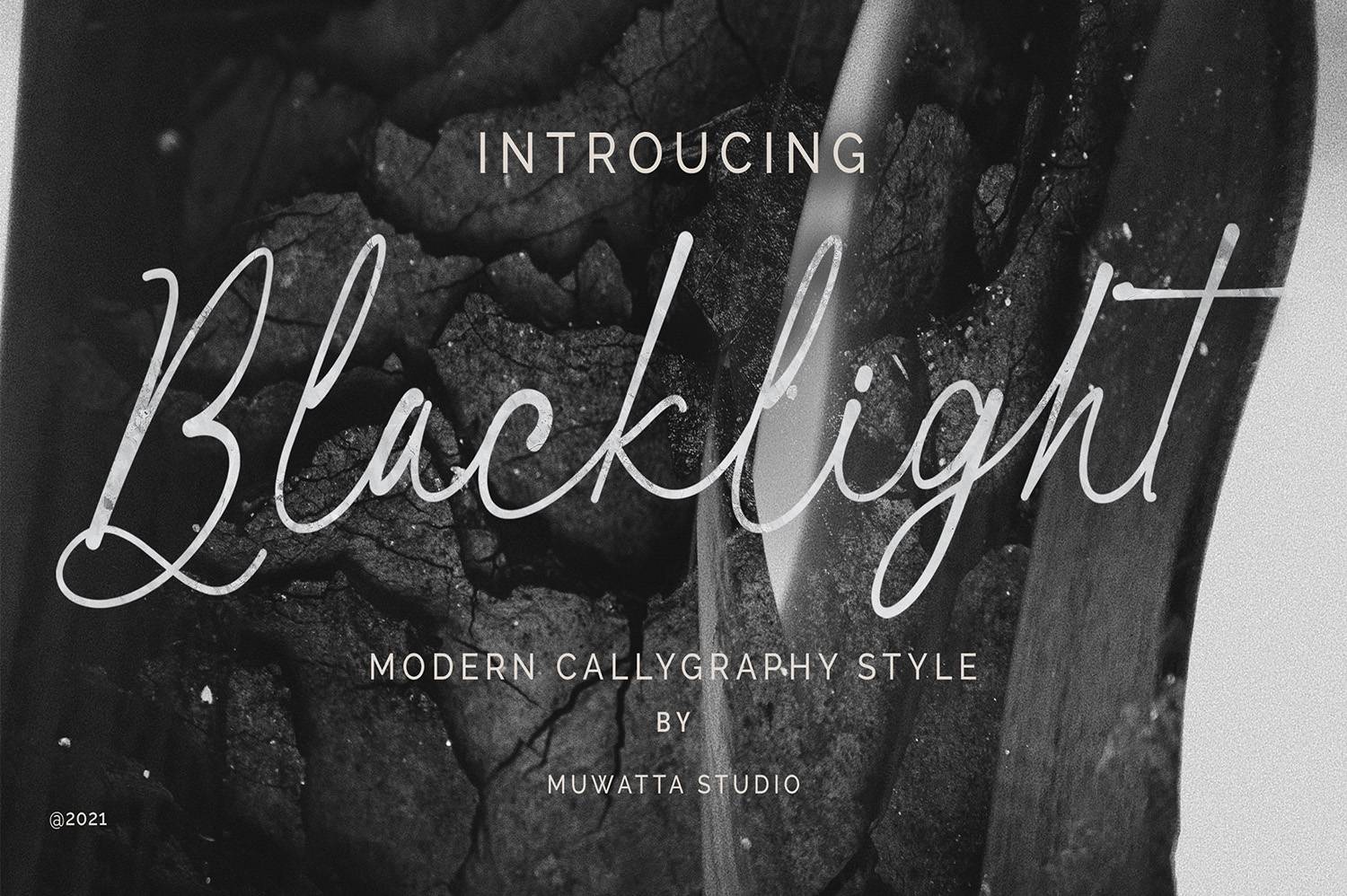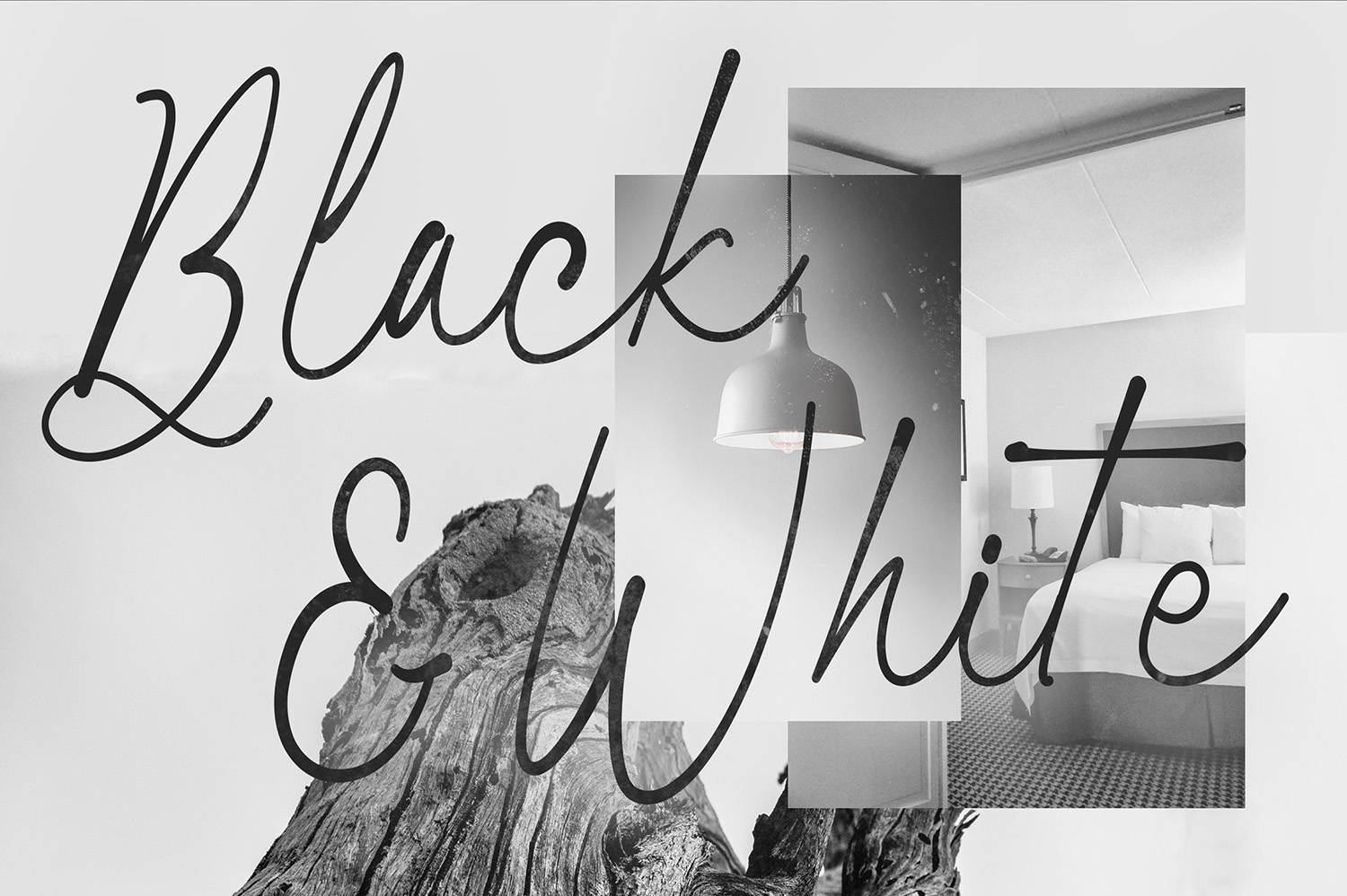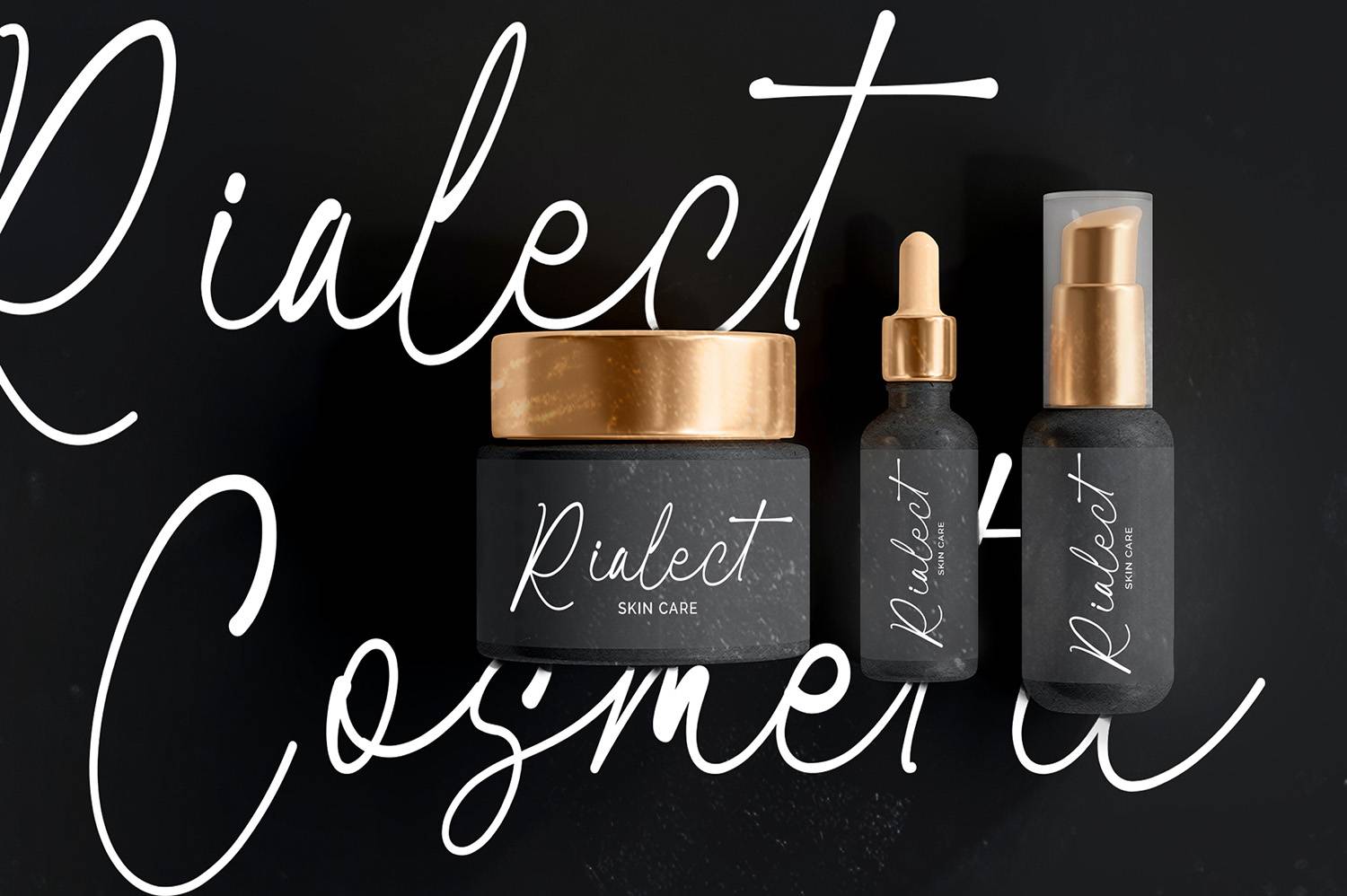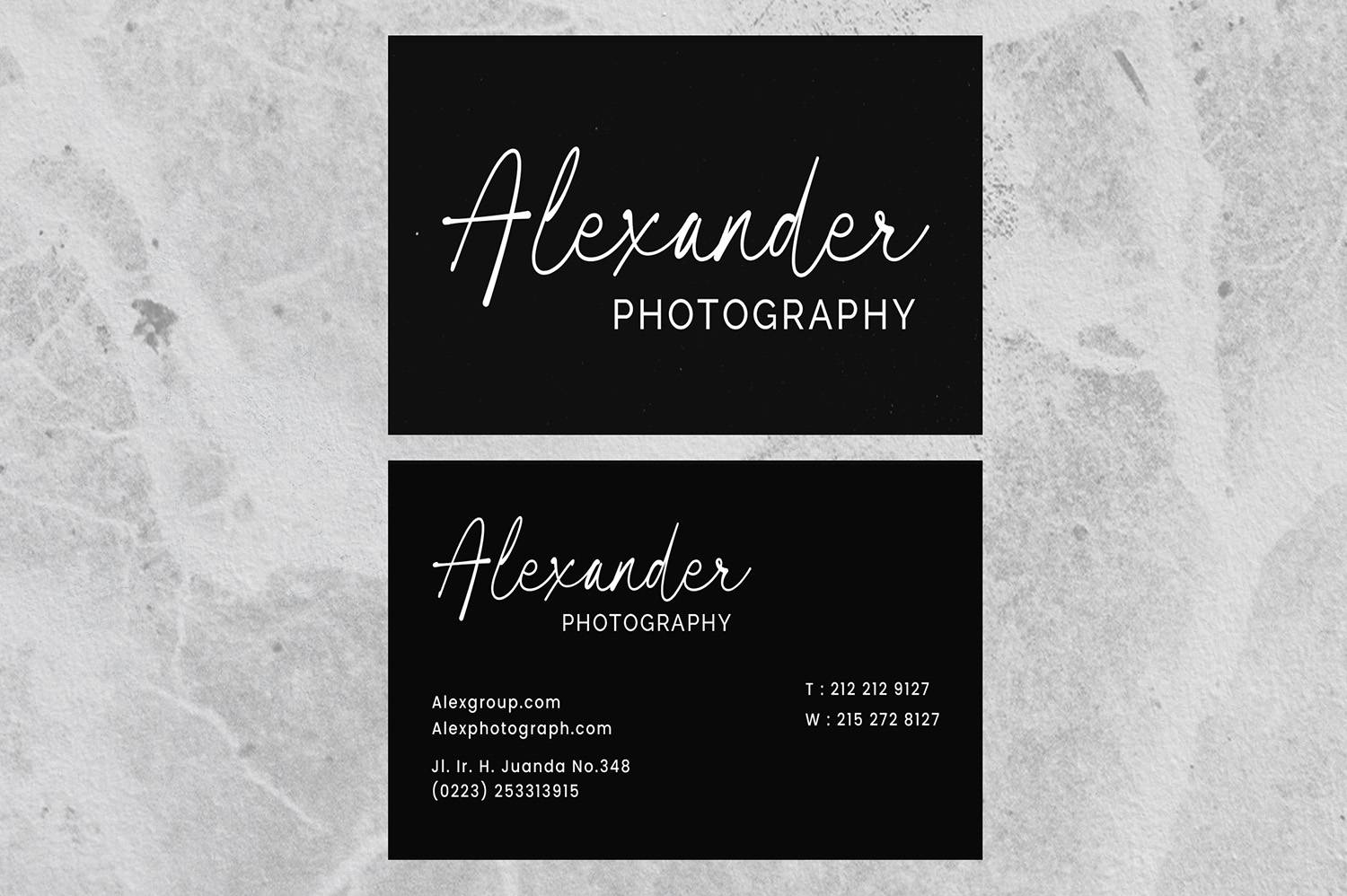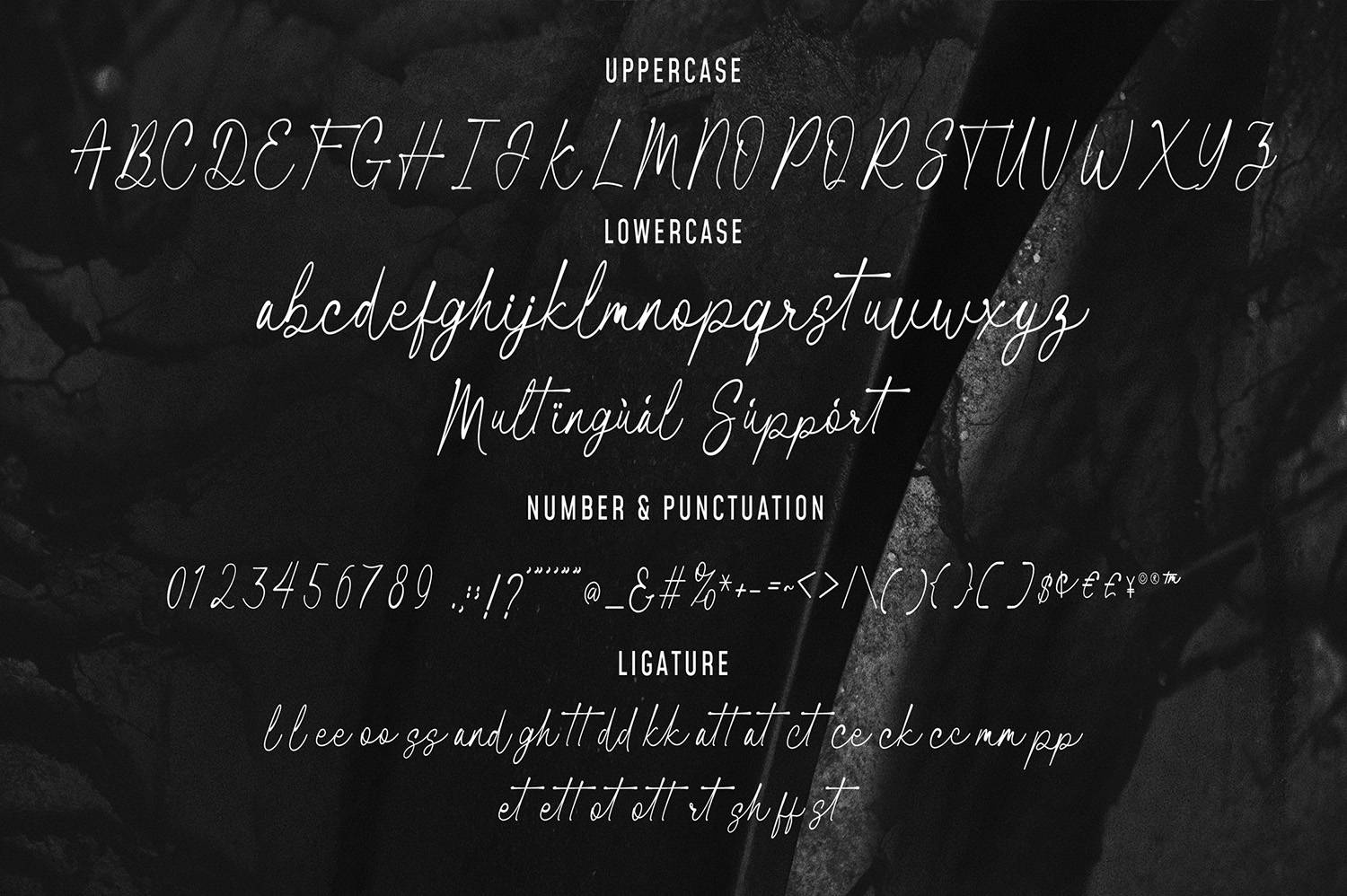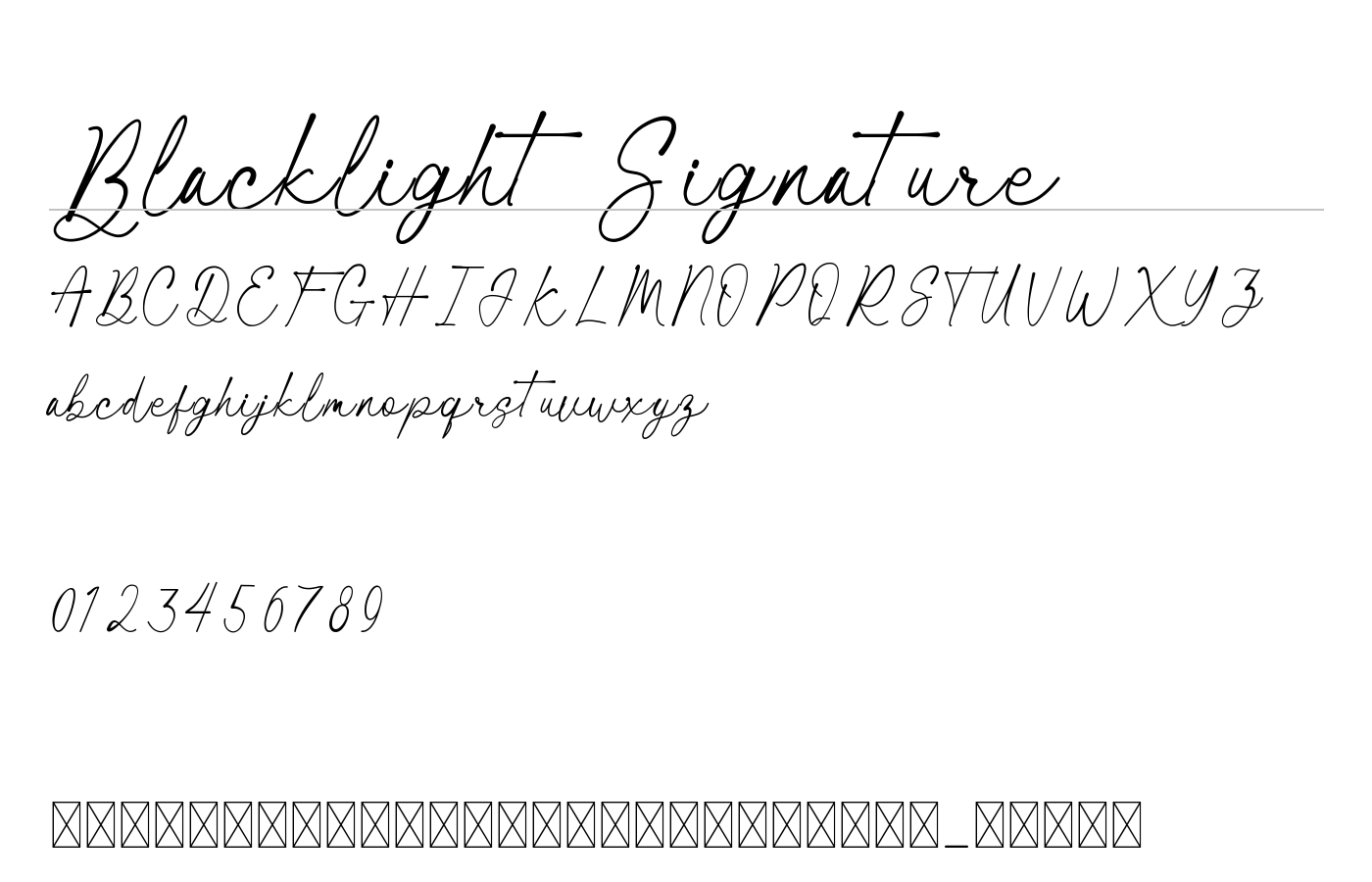
Blacklight Signature Font is an elegant, handwritten script with a delicate and flowing style that mimics natural cursive handwriting. Its thin, airy strokes and slightly elongated letterforms create a refined yet approachable personality, making it perfect for personal branding, invitations, and fashion-related design projects that require a touch of sophistication and warmth. This font works best for logos, headlines, and decorative text where a classy, signature-like feel is desired.
Blacklight Signature Font
About Blacklight Signature Font
| Font family | Blacklight Signature Font |
| Designer | Bayu Wibisono |